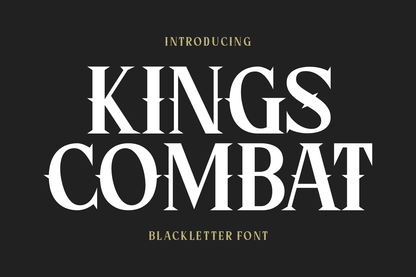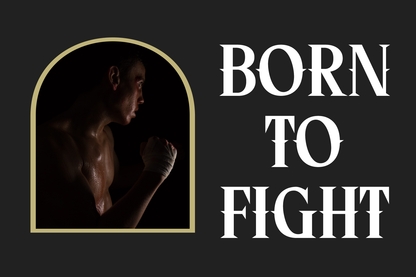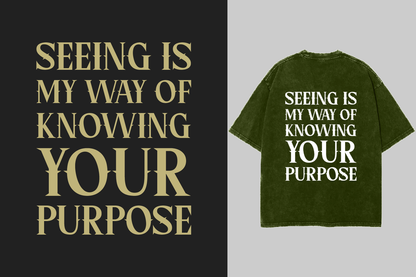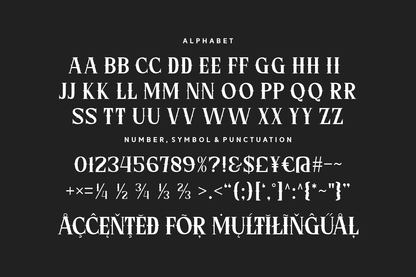
Kings Combat is a commanding blackletter font designed with royal elegance and battle-hardened flair. Featuring sharp diagonal cuts and noble proportions, it's perfect for fantasy titles, regal branding, or designs inspired by knights, kingdoms, and conquests.